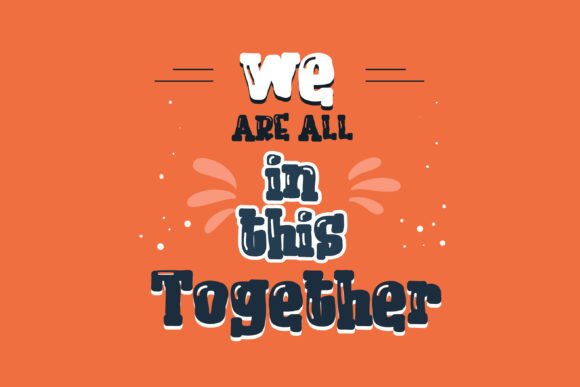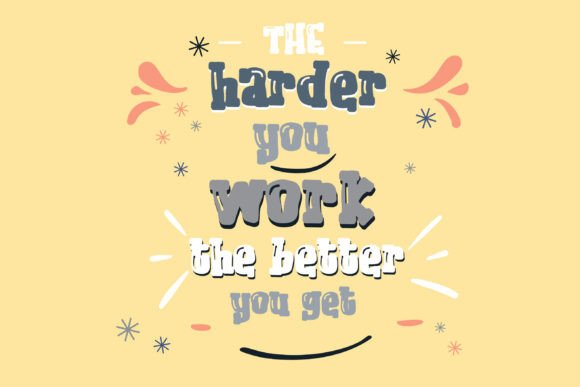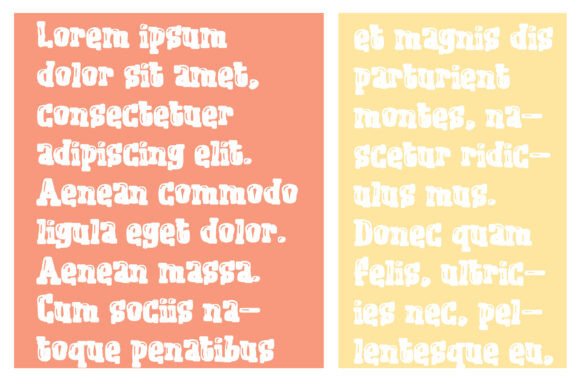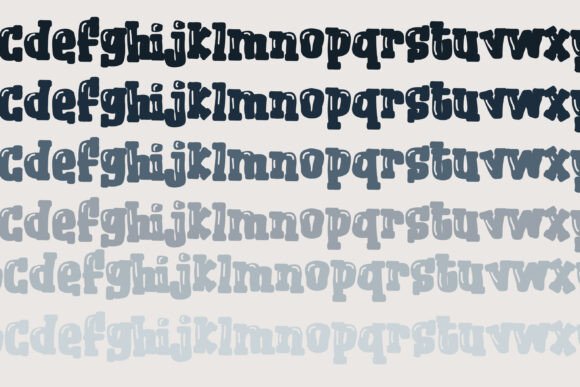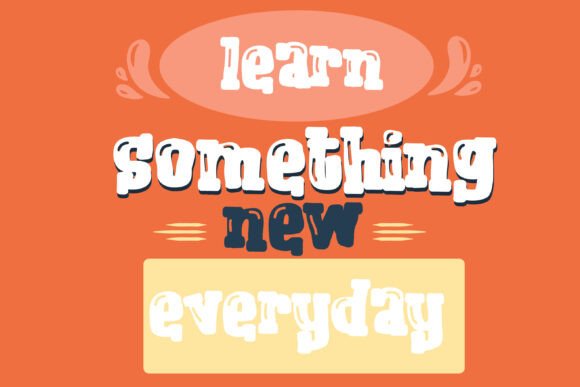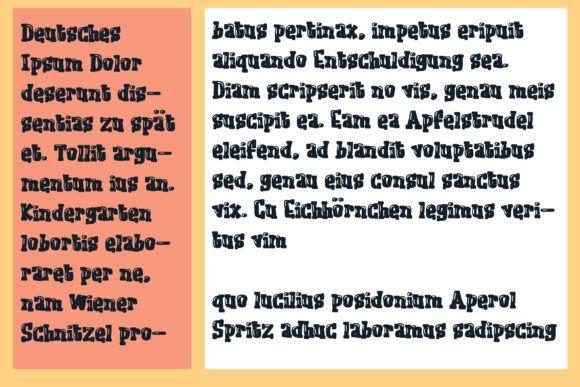
Bubonic Font: A Hand-Crafted, Soft, and Rounded Font for Creative Projects
Are you a designer or crafter looking for a unique and eye-catching font to add a personal touch to your projects? Look no further than the Bubonic Font, a hand-crafted font that is soft, rounded, and perfect for a variety of creative applications. In this article, we’ll take a closer look at the Bubonic Font, its features, and how you can use it to elevate your designs.
A hand-crafted font is a font that is designed to look like it was written by hand. It is often used for invitations, greeting cards, and other items where a personal touch is desired. Handwritten fonts can be either formal or informal, and they can be used for a variety of purposes, from digital designs to print materials.
Hand-crafted fonts are typically created using a combination of traditional drawing and digital tools. The process involves carefully crafting each letter, number, and symbol to create a unique and cohesive look. The result is a font that feels organic and human, rather than sterile and machine-generated.
Introducing Bubonic Font
The Bubonic Font is a beautiful example of a hand-crafted font. This soft, rounded font features highlights throughout, giving it a warm and inviting feel. The font is perfect for designers and crafters who want to add a touch of whimsy and personality to their projects.
One of the standout features of the Bubonic Font is its versatility. It can be used for a wide range of projects, from formal invitations to casual greeting cards. The font is also highly legible, making it suitable for use in digital designs, such as social media graphics and blog posts.
Features of Bubonic Font
The Bubonic Font comes with a range of features that make it a great choice for designers and crafters. Some of the key features include:
- Soft, rounded letters with a warm and inviting feel
- Highlights throughout to add depth and dimension
- Unhighlighted version included for added versatility
- Hand-crafted design for a unique and organic look
- Highly legible and easy to read
Using Bubonic Font in Your Designs
The Bubonic Font is easy to use in a variety of design applications. Here are a few ideas to get you started:
- Invitations: Use the Bubonic Font to create beautiful, hand-crafted invitations for weddings, parties, and other special events.
- Greeting cards: Add a personal touch to your greeting cards with the Bubonic Font, perfect for birthdays, holidays, and other occasions.
- Digital designs: Use the Bubonic Font in your digital designs, such as social media graphics, blog posts, and email newsletters.
- Print materials: The Bubonic Font is also suitable for use in print materials, such as brochures, flyers, and posters.
Tips for Working with Hand-Crafted Fonts
When working with hand-crafted fonts like the Bubonic Font, here are a few tips to keep in mind:
- Use it sparingly: Hand-crafted fonts can be attention-grabbing, so use them sparingly to avoid overwhelming your design.
- Pair it with a simple font: Pair the Bubonic Font with a simple font to create contrast and add visual interest to your design.
- Experiment with colors: Hand-crafted fonts look great in a range of colors, so don’t be afraid to experiment and find the perfect hue for your design.
The Bubonic Font is a beautiful, hand-crafted font that is perfect for designers and crafters looking to add a personal touch to their projects. With its soft, rounded letters and highlights throughout, this font is sure to grab attention and leave a lasting impression. Whether you’re creating invitations, greeting cards, or digital designs, the Bubonic Font is a great choice.
So why not give the Bubonic Font a try? With its versatility, legibility, and unique design, it’s sure to become a favorite in your design toolkit.